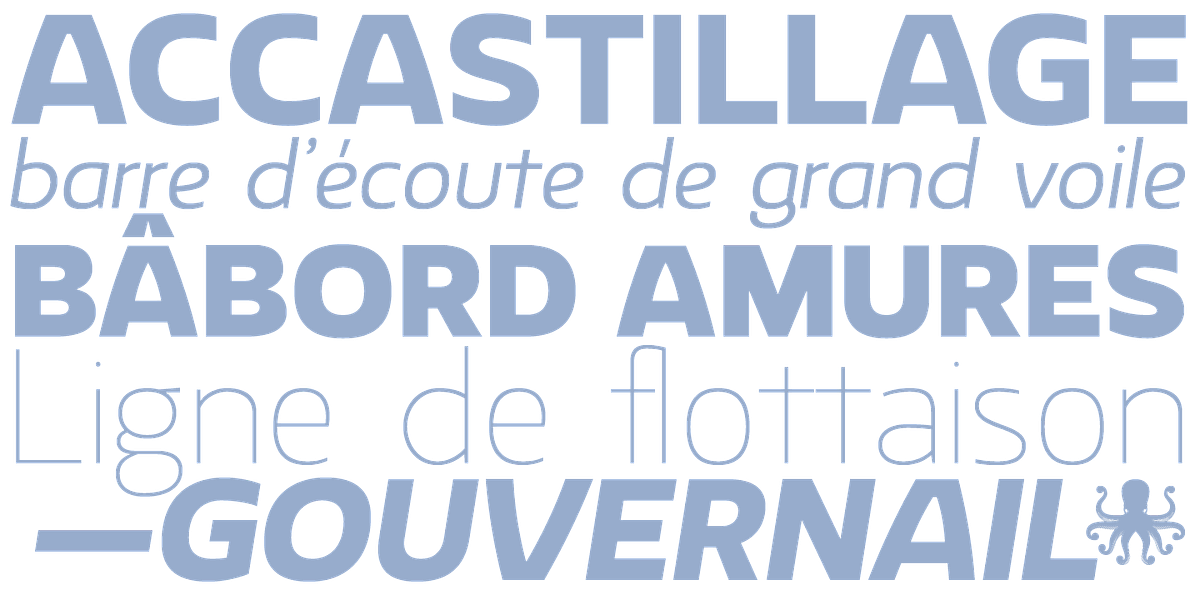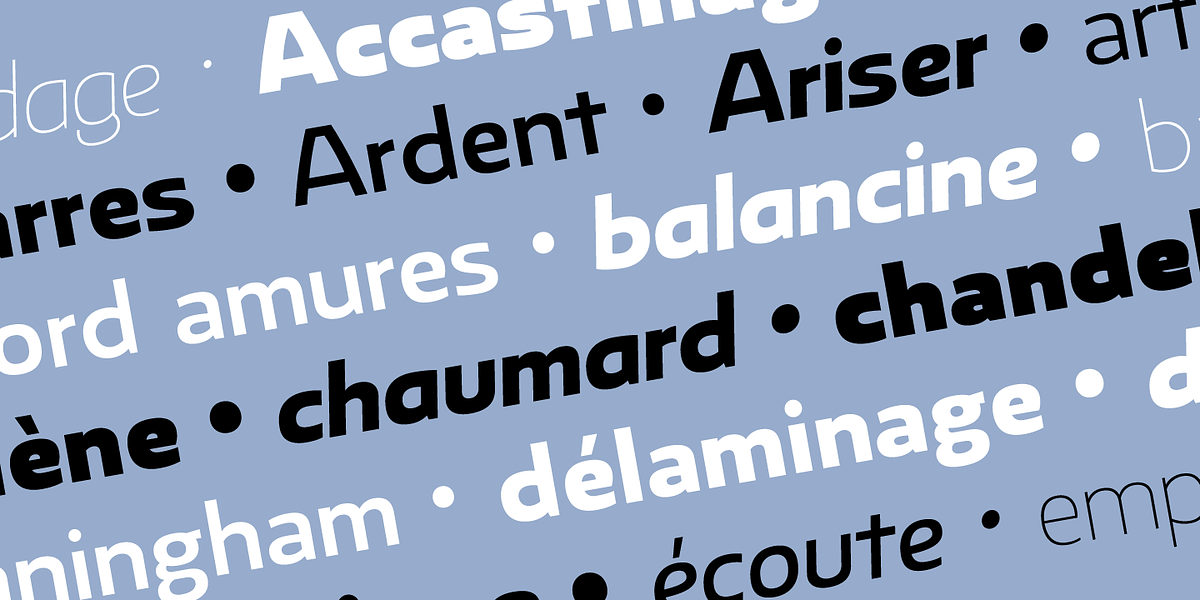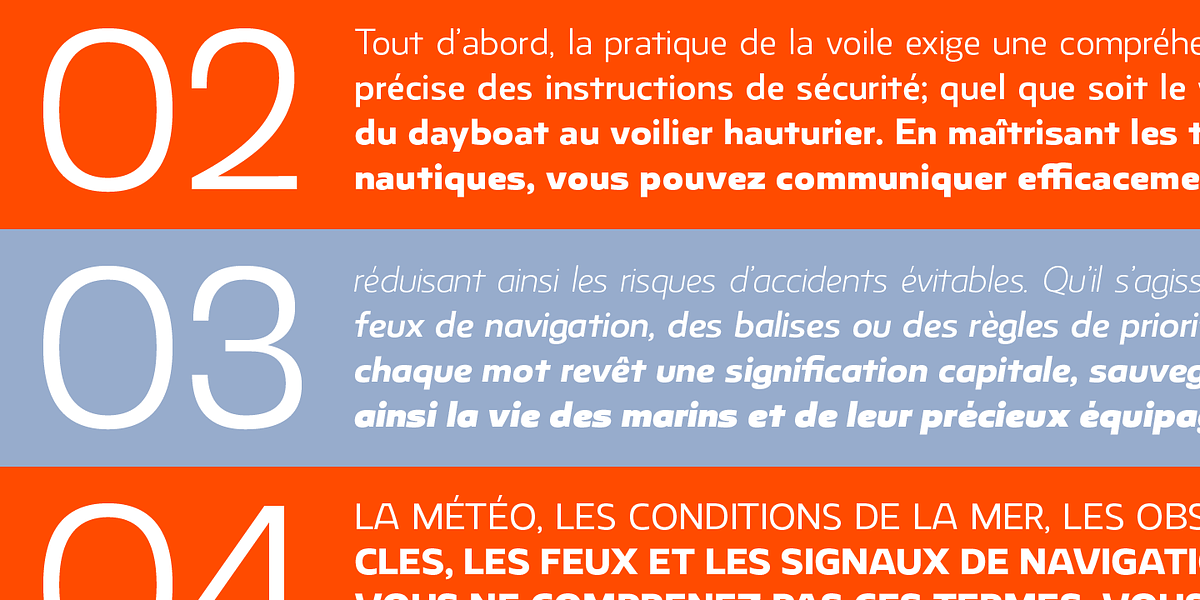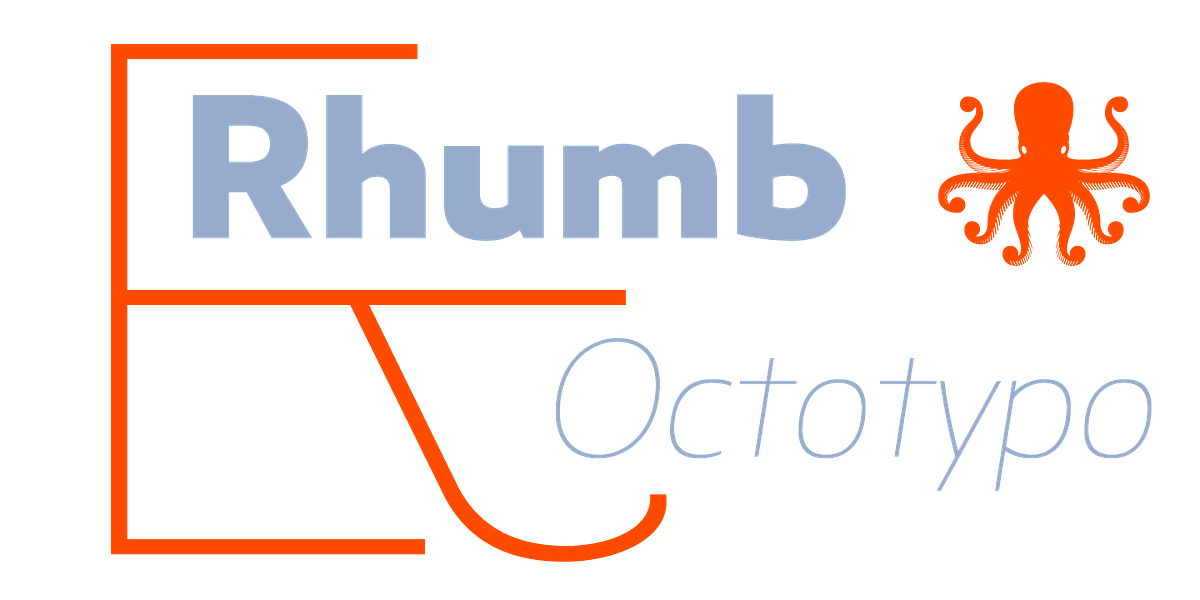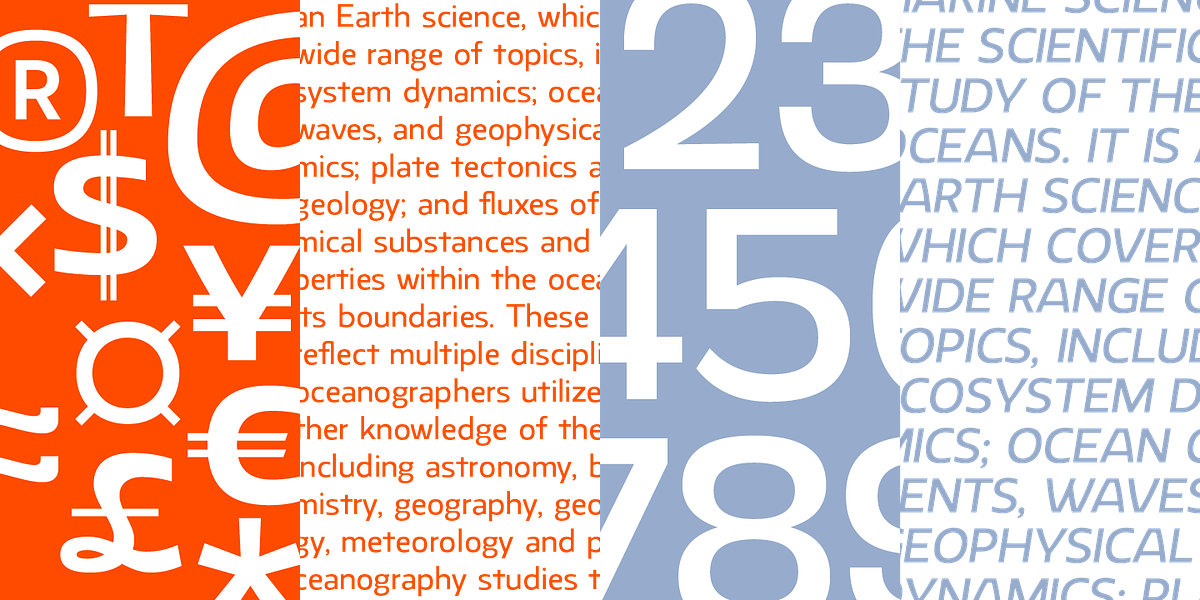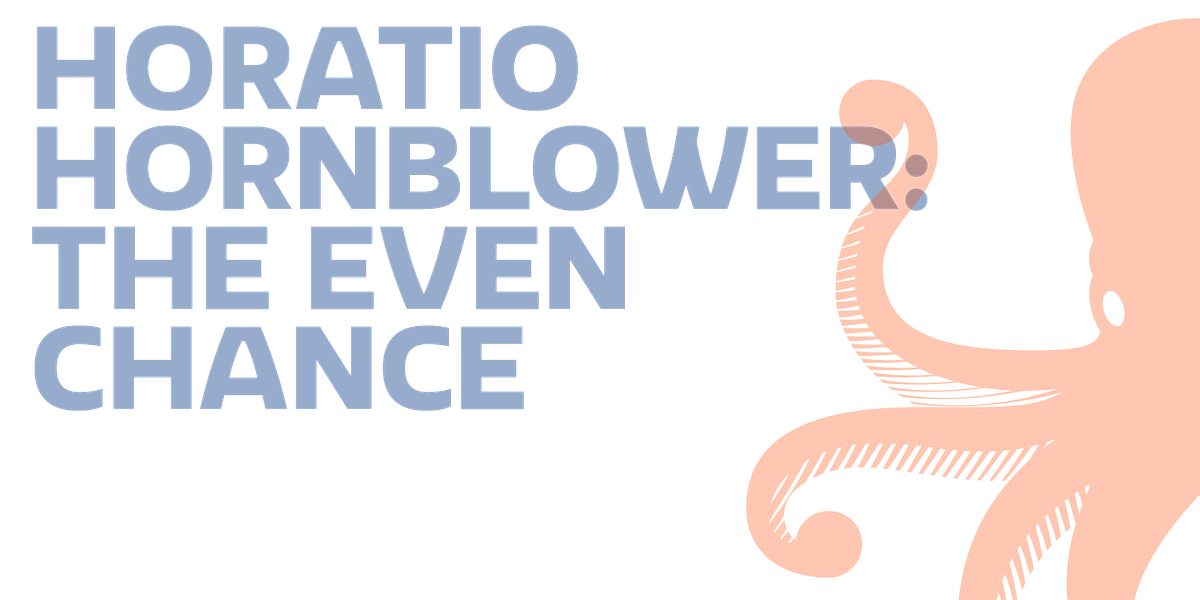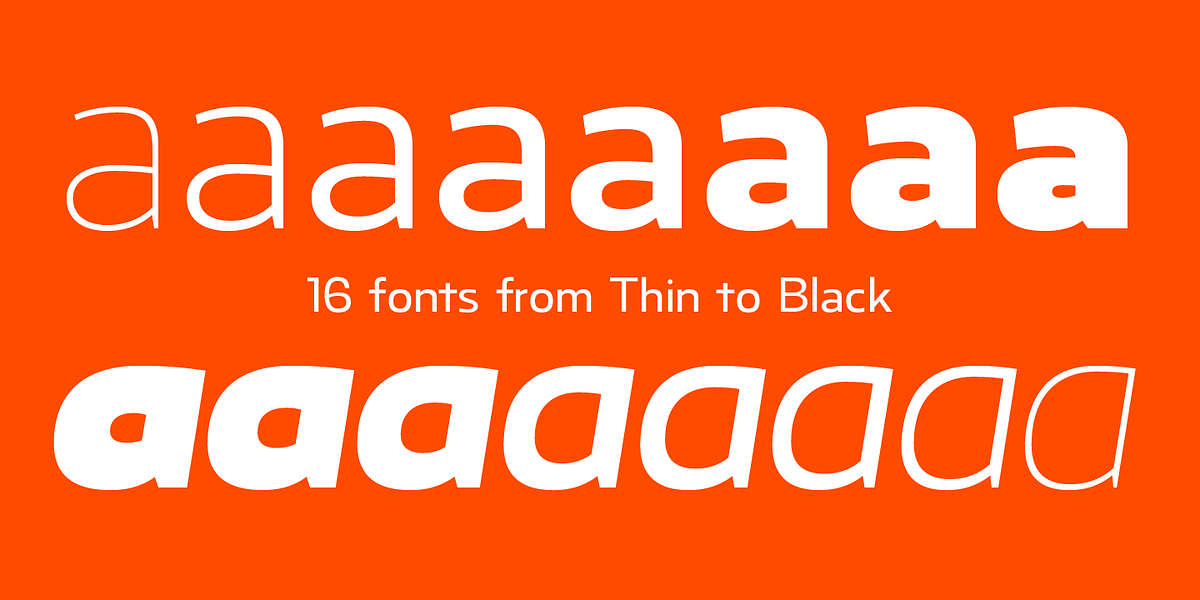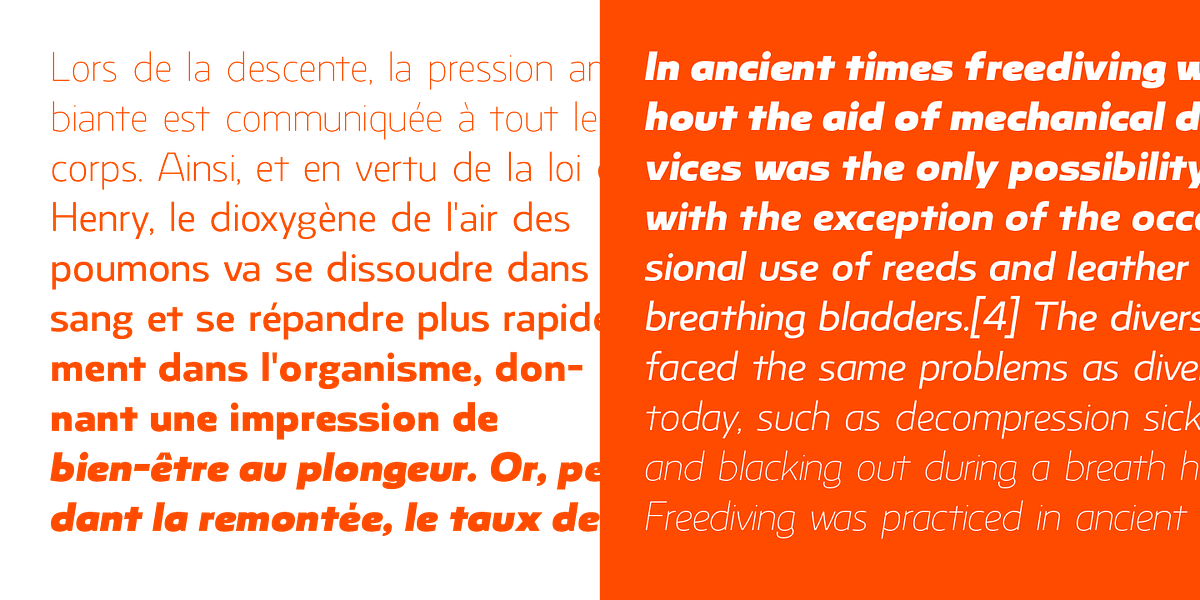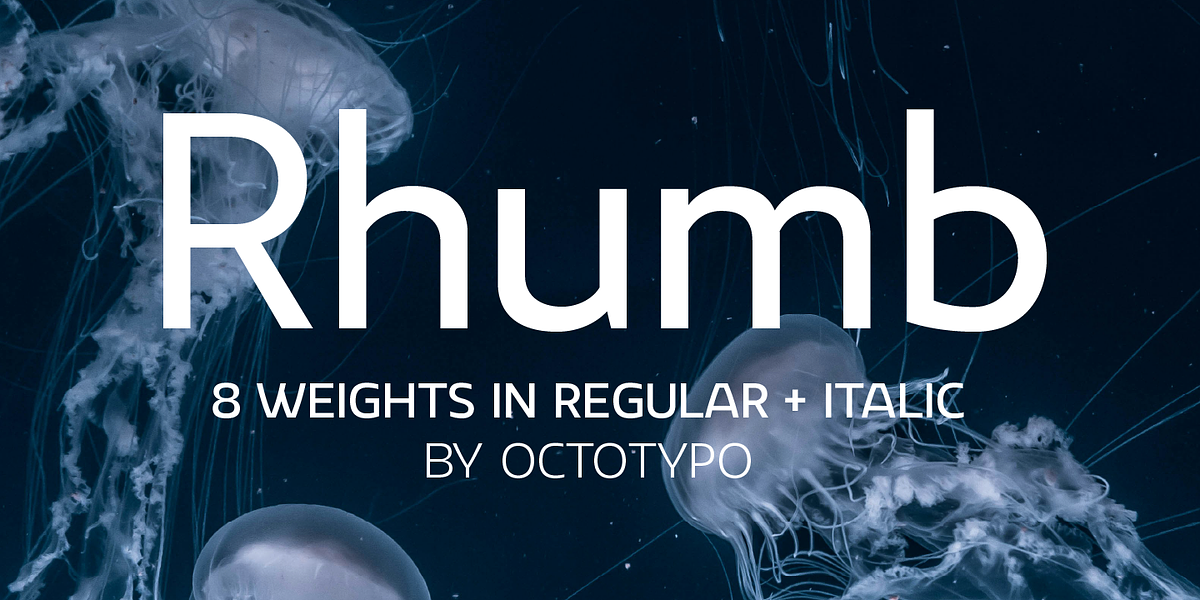
Rhumb
Rhumb is a sans serif typeface designed to evoke warmth and approachability. Its rounded forms contribute to its friendly aesthetic while maintaining readability even at smaller sizes. This versatility makes it suitable for both display applications like headlines and body text in various mediums such as magazines, packaging, and branding.